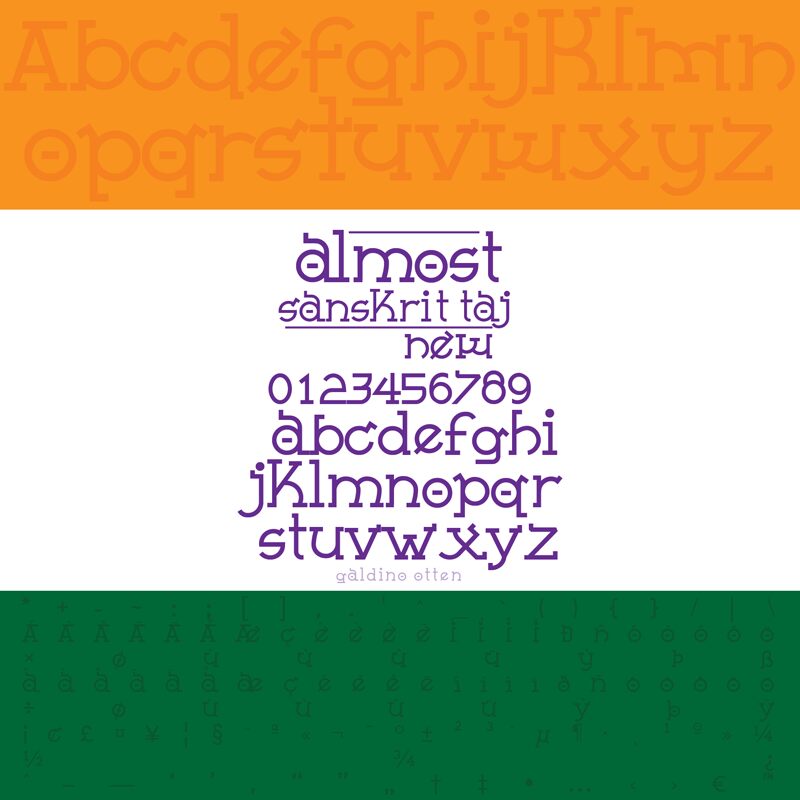
Almost Sanskrit Taj New
Almost Sanskrit Taj New is a versatile and elegant font designed by Galdino Otten. With its semi-light weight and Sanskrit style, this font is perfect for adding a touch of sophistication to your projects.
Whether you're designing invitations for a cultural event or creating a logo for an exotic travel agency, Almost Sanskrit Taj New will captivate your audience with its unique blend of traditional and contemporary elements. Its various styles make it suitable for both print and digital media, ensuring that your message stands out with utmost clarity and beauty.